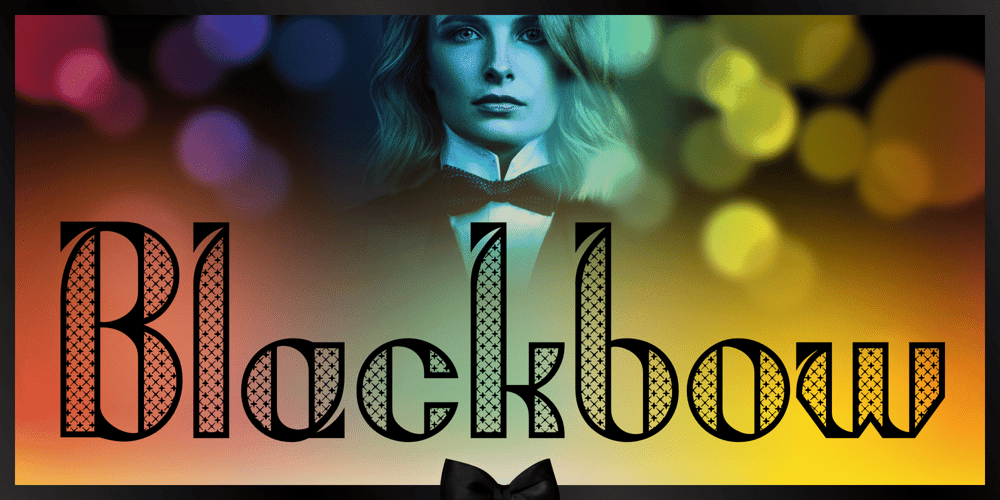
Blackbow
Blackbow font
Blackbow Font Family was designed by Michael Kovacevich and published by MKGD. Blackbow contains 1 styles and family package options. Blackbow is a font that takes its inspiration from three enticing subjects. Firstly, it’s sheer, lace-like construction captures the allure of lingerie. Secondly, it possesses and projects the sometimes dour but always POEtic trappings of Goth culture. And lastly, it conveys the stylish, provocative accoutrements of Steampunk. When blended together, Blackbow is a font that suggests the rapture of dark temptation in the sultriest of ways.Blackbow has a glyph count of 389 and supports the following languagesAfrikaans, Albanian, Asu, Basque, Bemba, Bena, Bosnian, Catalan, Chiga, Colognian, Cornish, Croatian, Czech, Danish, Embu, English, Esperanto, Estonian, Faroese, Filipino, Finnish, French, Friulian, Galician, German, Gusii, Hungarian, Icelandic, Indonesian, Irish, Italian, Kabuverdianu, Kalaallisut, Kalenjin, Kamba, Kikuyu, Kinyarwanda, Latvian, Lithuanian, Low German, Lower Sorbian, Luo, Luxembourgish, Luyia, Machame, Makhuwa-Meetto, Makonde, Malagasy, Malay, Maltese, Manx, Meru, Morisyen, North Ndebele, Norwegian Bokmål, Norwegian Nynorsk, Nyankole, Oromo, Polish, Portuguese, Romanian, Romansh, Rombo, Rundi, Rwa, Samburu, Sango, Sangu, Scottish Gaelic, Sena, Shambala, Shona, Slovak, Slovenian, Soga, Somali, Spanish, Swahili, Swedish, Swiss German, Taita, Teso, Turkmen, Upper Sorbian, Vunjo, Walser, Zulu